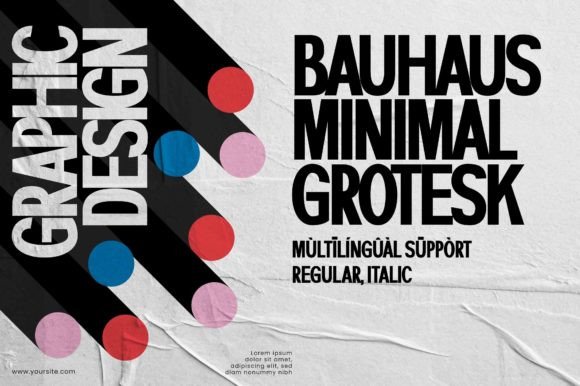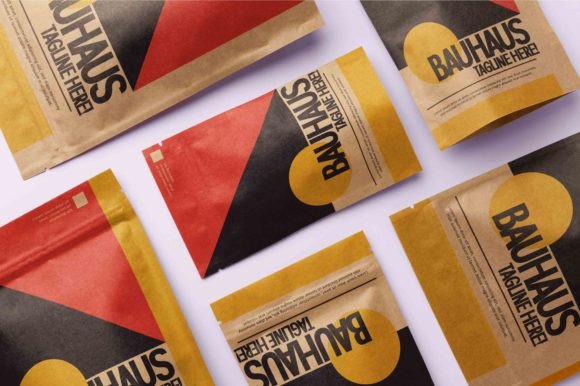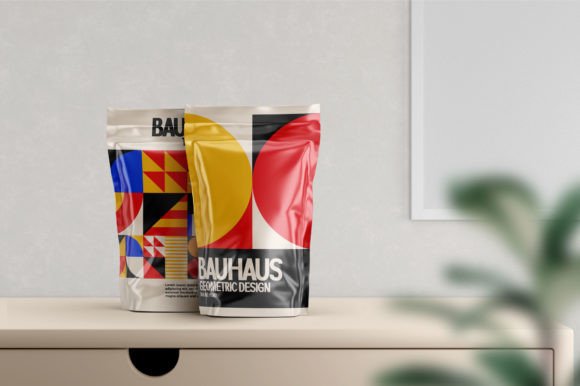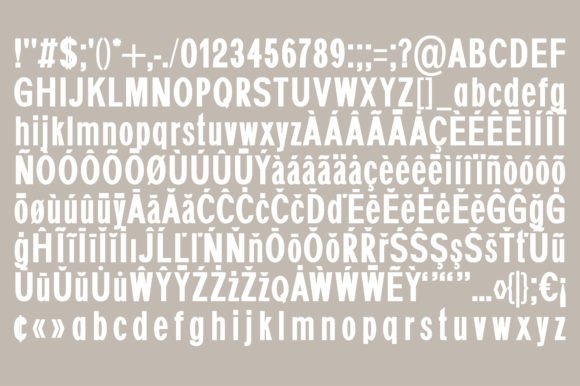
About the Bauhaus Font
Introducing the Bauhaus Font, a beautifully crafted typeface designed to elevate your creative projects. Bauhaus is a clean, tall, and grotesque sans serif typeface. Its amazing minimalistic appearance renders it a vital choice when you want to opt-in for a clean minimalistic design. It can be used in various contexts, such as packaging design, product design, die-cutting design, fashion design, perfume, and cosmetics design. With its minimalist style, this typeface is suitable for a wide range of creative ideas.
Bauhaus Font Usage Examples